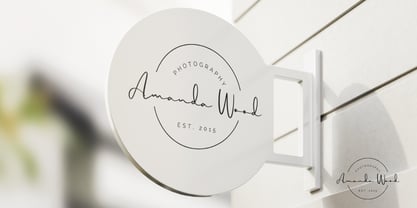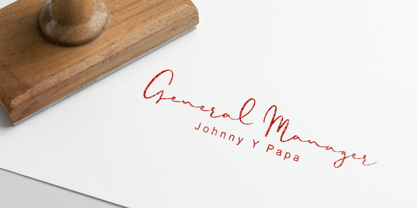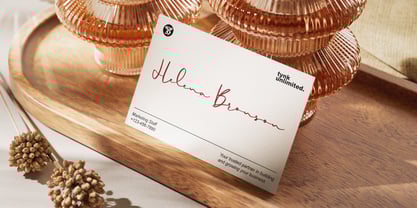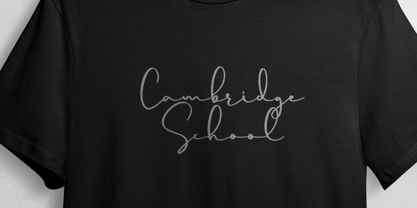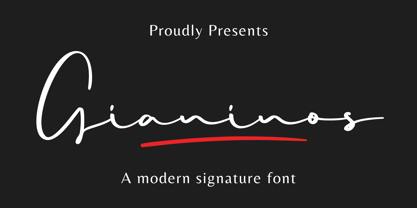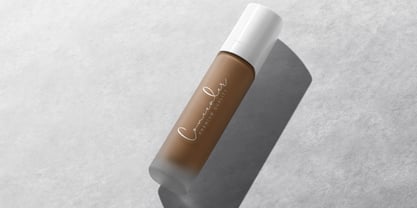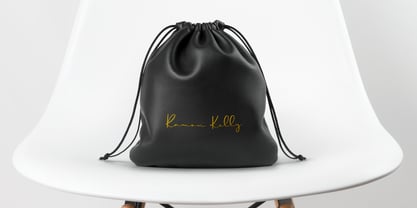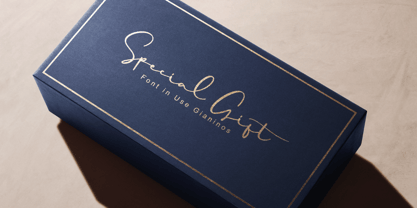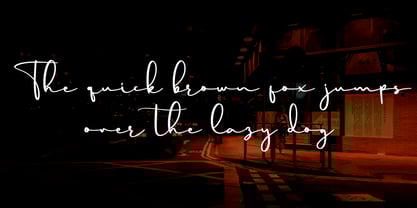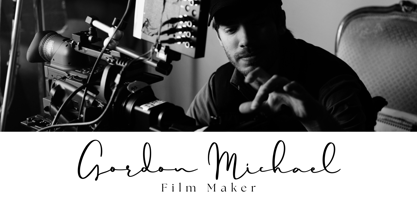
Gianinos
Gianinos is more than just a font — it’s a signature of soul and creativity.
Crafted to look effortlessly handwritten, Gianinos brings your ideas to life with a graceful rhythm and soft, flowing lines. Every letter feels personal — like a note from a friend, or a message written with care. It’s the perfect choice for designers, freelancers, and small businesses who want their brand to feel real, relatable, and beautifully human.
With 278 stylish glyphs and multi-language support, Gianinos is incredibly versatile. Use it for everything from product packaging and logo design to social media posts, wedding invitations, and heartfelt quotes. It works beautifully in both print and digital — wherever a human touch is needed.
Why you’ll love Gianinos:
• Authentic handwritten style with clean, natural flow
• 278 unique glyphs, alternate characters, and ligatures
• Supports multiple languages
• Ideal for branding, packaging, and storytelling
• Made with love — for creatives who care about detail
Let your words speak from the heart — with Gianinos.